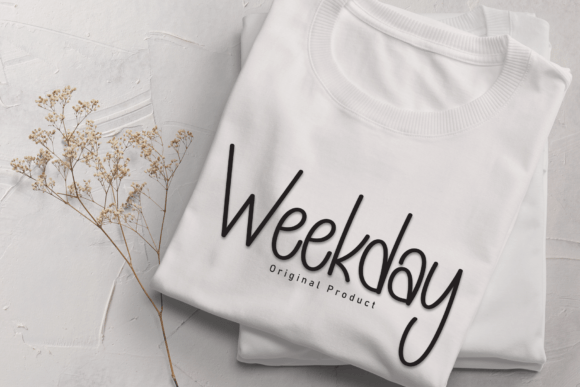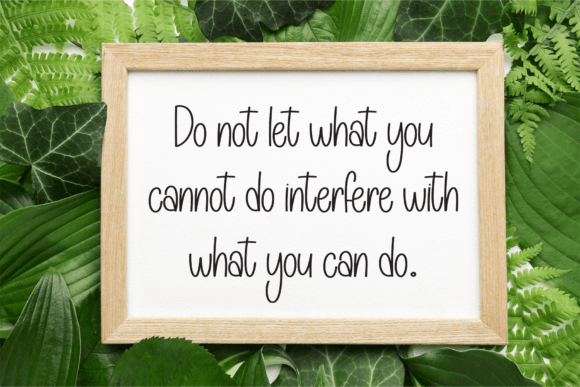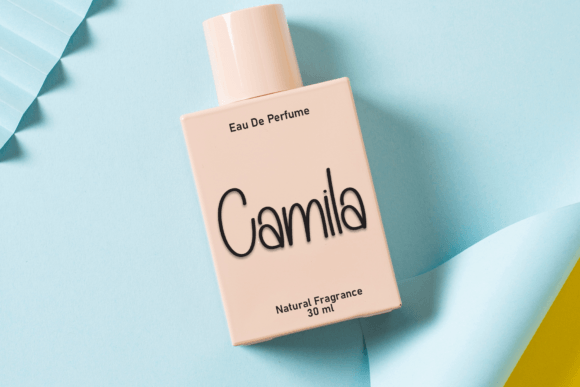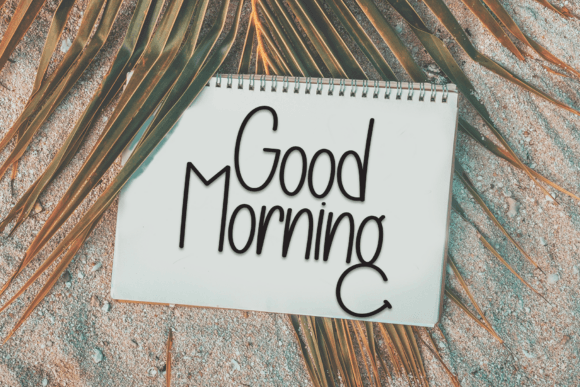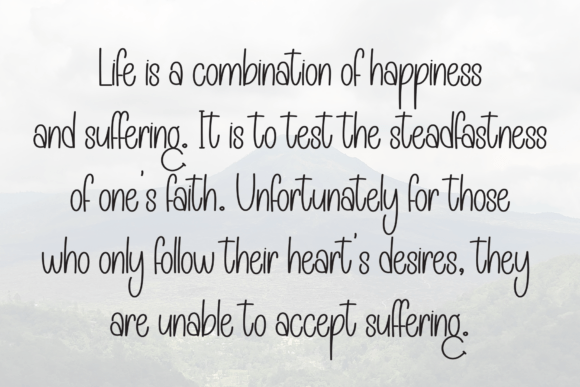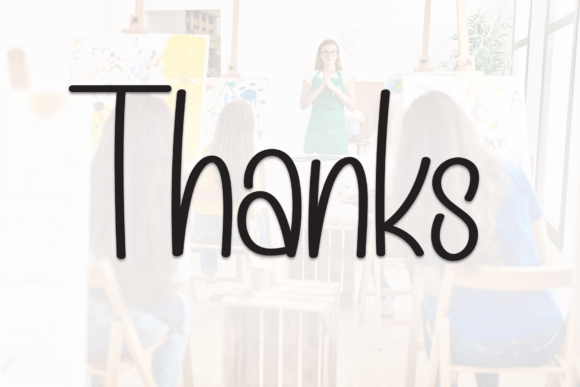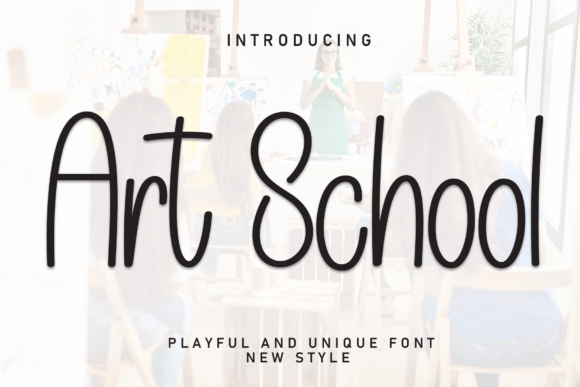
Introducing Art School Font: The Sweet and Friendly Handwritten Font for Creative Minds
Are you a designer, crafter, or artist looking for a font that can add a personal touch to your creative projects? Look no further than Art School Font, a sweet and friendly handwritten font that’s perfect for a wide range of designs. With its natural and unique style, Art School Font is incredibly versatile and can be used for everything from greeting cards and invitations to branding and advertising.
The Characteristics of Art School Font
Art School Font is a handwritten font that’s designed to look like it was written with a pen or pencil. Its natural, fluid strokes and subtle imperfections give it a charming and organic feel that’s perfect for creating a personal connection with your audience. The font is highly legible, making it suitable for both short and long pieces of text, and its friendly tone is sure to put a smile on the reader’s face.
One of the standout features of Art School Font is its uniqueness. Unlike generic, computer-generated fonts that can look stiff and impersonal, Art School Font has a distinctive character that’s sure to make your designs stand out. Whether you’re creating a logo, a poster, or a social media graphic, Art School Font is the perfect choice for adding a touch of personality and whimsy.
The Benefits of Using Art School Font
So why choose Art School Font for your creative projects? Here are just a few benefits of using this amazing font:
• Versatility: Art School Font is incredibly versatile and can be used for a wide range of designs, from formal and informal documents to digital and print materials.
• Uniqueness: With its natural and unique style, Art School Font is sure to make your designs stand out from the crowd and leave a lasting impression on your audience.
• Legibility: The font is highly legible, making it suitable for both short and long pieces of text, and its friendly tone is sure to engage your readers.
How to Use Art School Font in Your Designs
Art School Font is incredibly easy to use, and it can be incorporated into your designs in a variety of ways. Here are a few ideas to get you started:
• Greeting cards and invitations: Use Art School Font to create personalized greeting cards and invitations that are sure to delight your friends and family.
• Branding and advertising: Add a touch of personality to your brand with Art School Font, and use it to create eye-catching advertising materials that grab attention.
• Social media graphics: Use Art School Font to create engaging social media graphics that showcase your personality and style.
• Logos and signage: Create a unique and memorable logo or sign with Art School Font that’s sure to make your business stand out.
Tips and Tricks for Getting the Most Out of Art School Font
Here are a few tips and tricks for getting the most out of Art School Font:
• Experiment with different colors: Art School Font looks great in a variety of colors, so don’t be afraid to experiment and find the perfect hue for your design.
• Mix and match with other fonts: Art School Font pairs well with a variety of other fonts, so try mixing and matching it with different styles to create a unique look.
• Use it for headlines and body text: Art School Font is highly legible, making it suitable for both headlines and body text.
• Add some flair: Use Art School Font to add a touch of personality to your designs, and don’t be afraid to add some flair with embellishments and graphics.